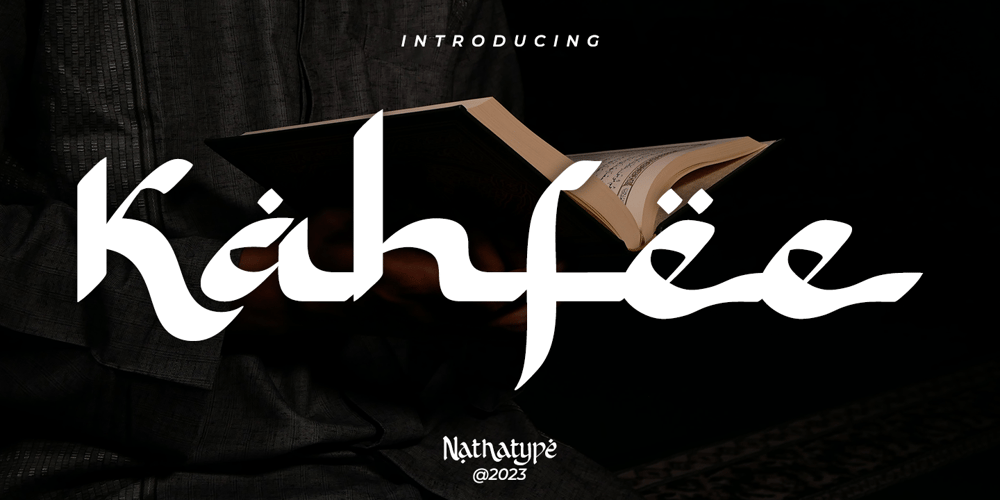
Kahfee Font Family was designed by Donis Miftahudin and published by Nathatype. Kahfee contains 1 styles and family package options. Introducing Kahfee, a mesmerizing display font that invites you into a world where artistry and elegance merge seamlessly. Kahfee takes its inspiration from the captivating aesthetics of Arabic script. In this font, you’ll find that every letter is thoughtfully connected, creating a captivating rhythm that mimics the graceful dance of Arabic writing.The strokes and curves are a tribute to the centuries-old tradition of Arabic calligraphy. Kahfee fits in headlines, logos, posters, flyers, branding materials, print media, editorial layouts, and many more designs. Find out more ways to use this font by taking a look at the font preview.